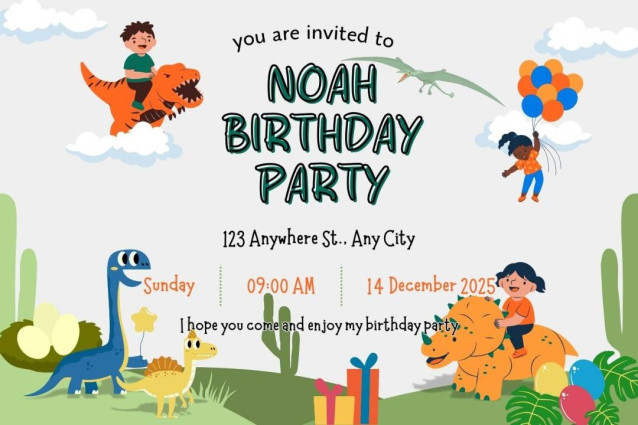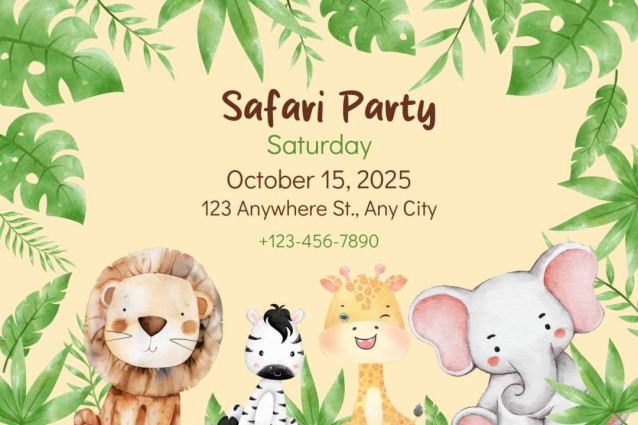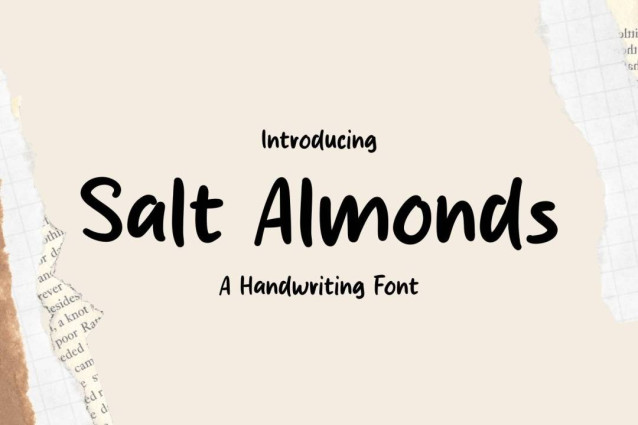
Salt Almonds Font
Salt Almonds Font a sweet and friendly handwritten font. Cute and fun, this font is ideal for writing wedding invitations, cards, or any other design that might need a fun touch!